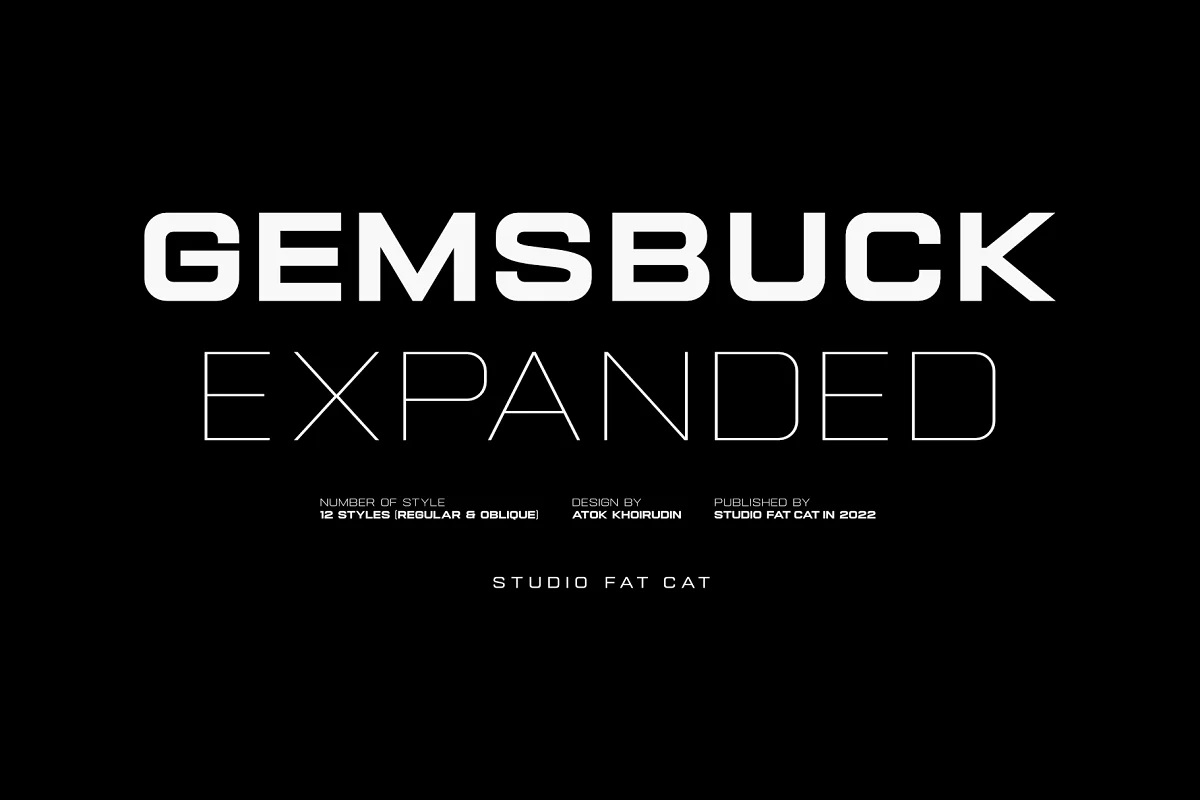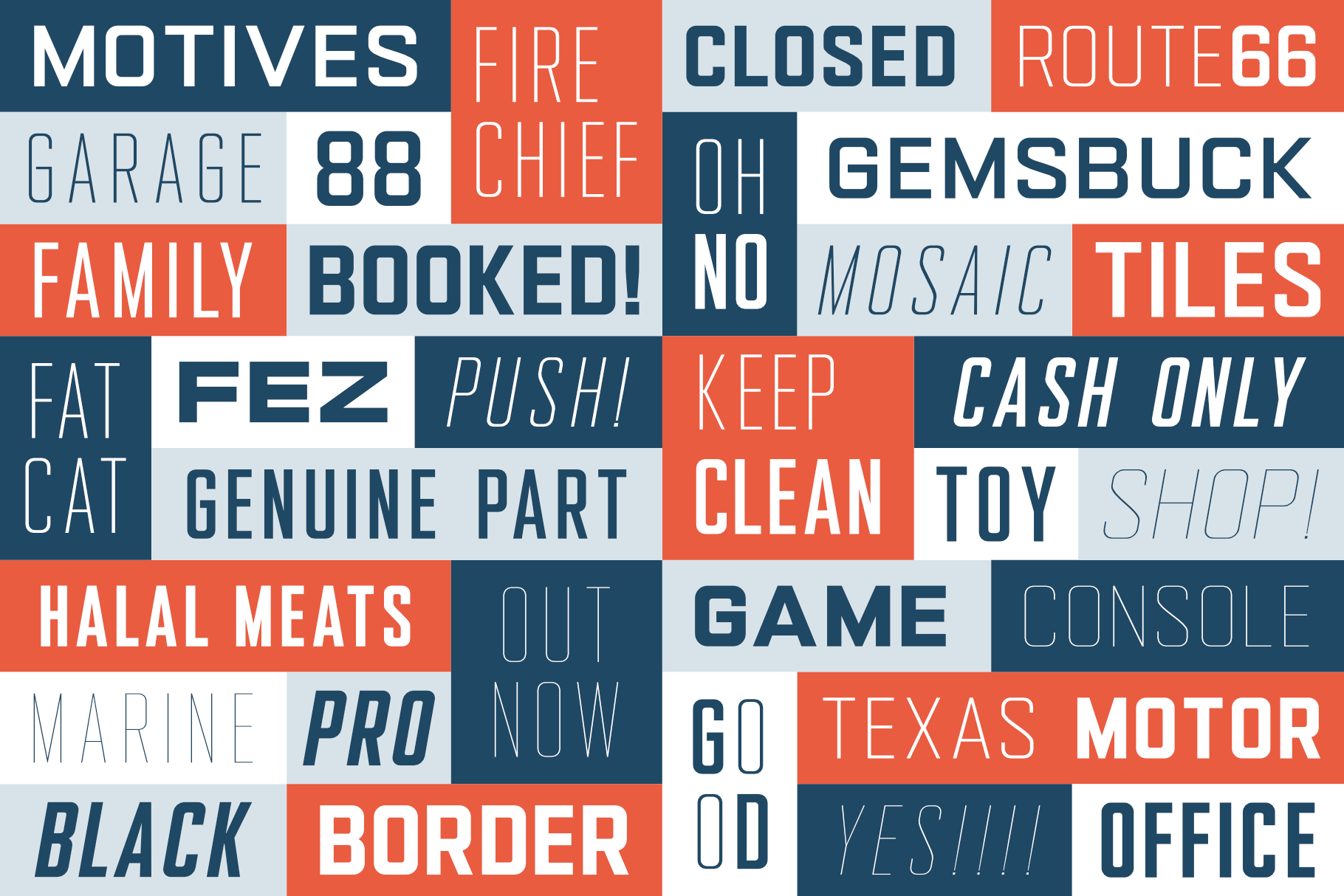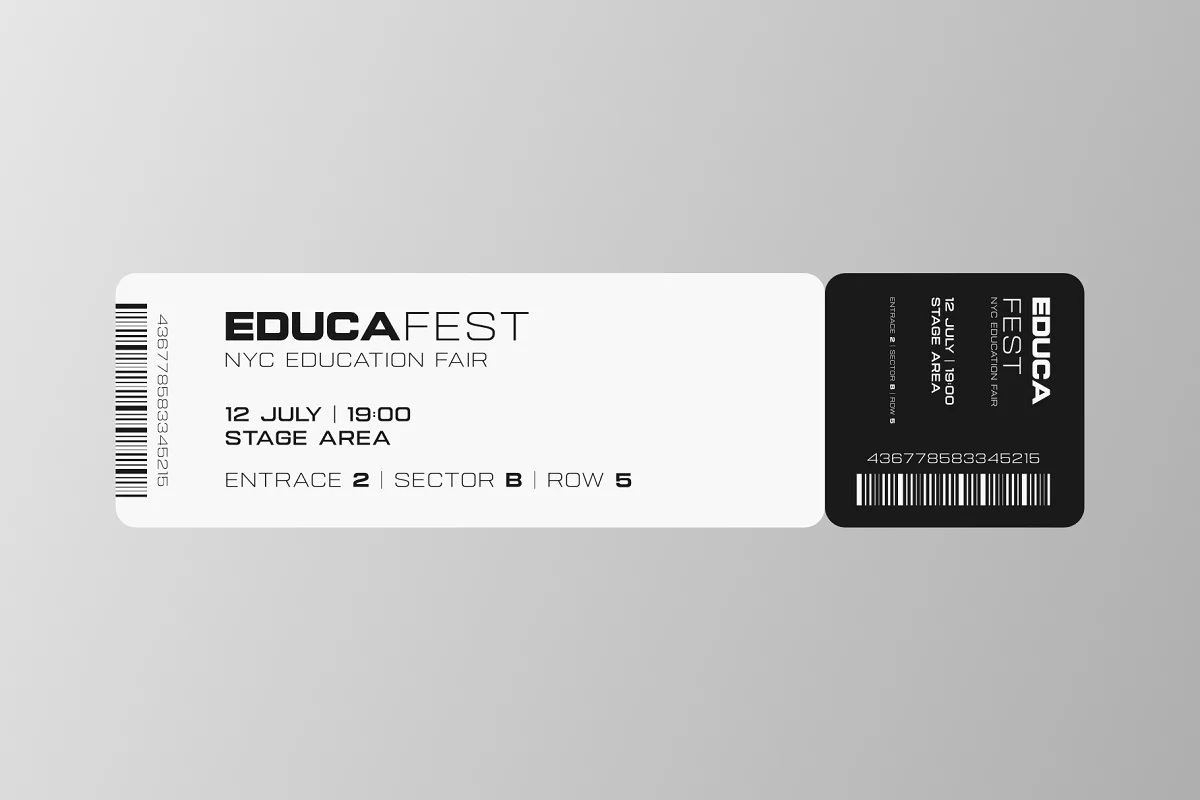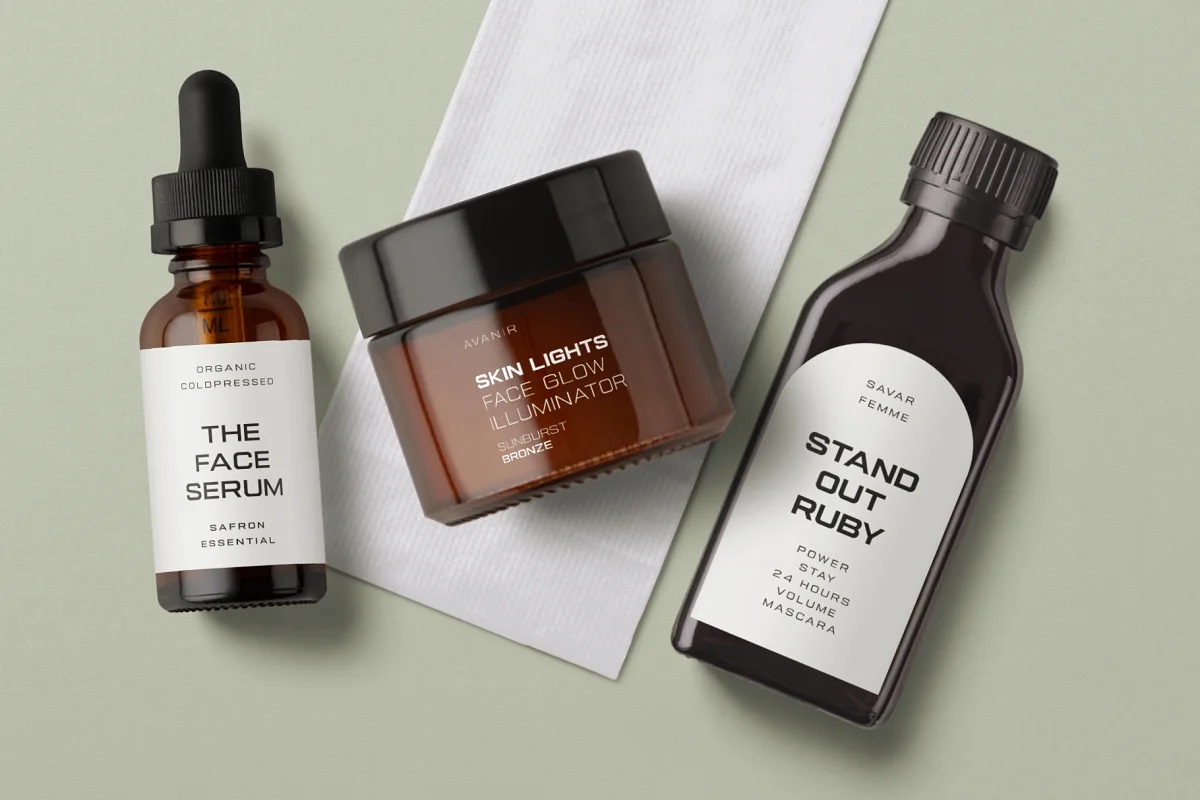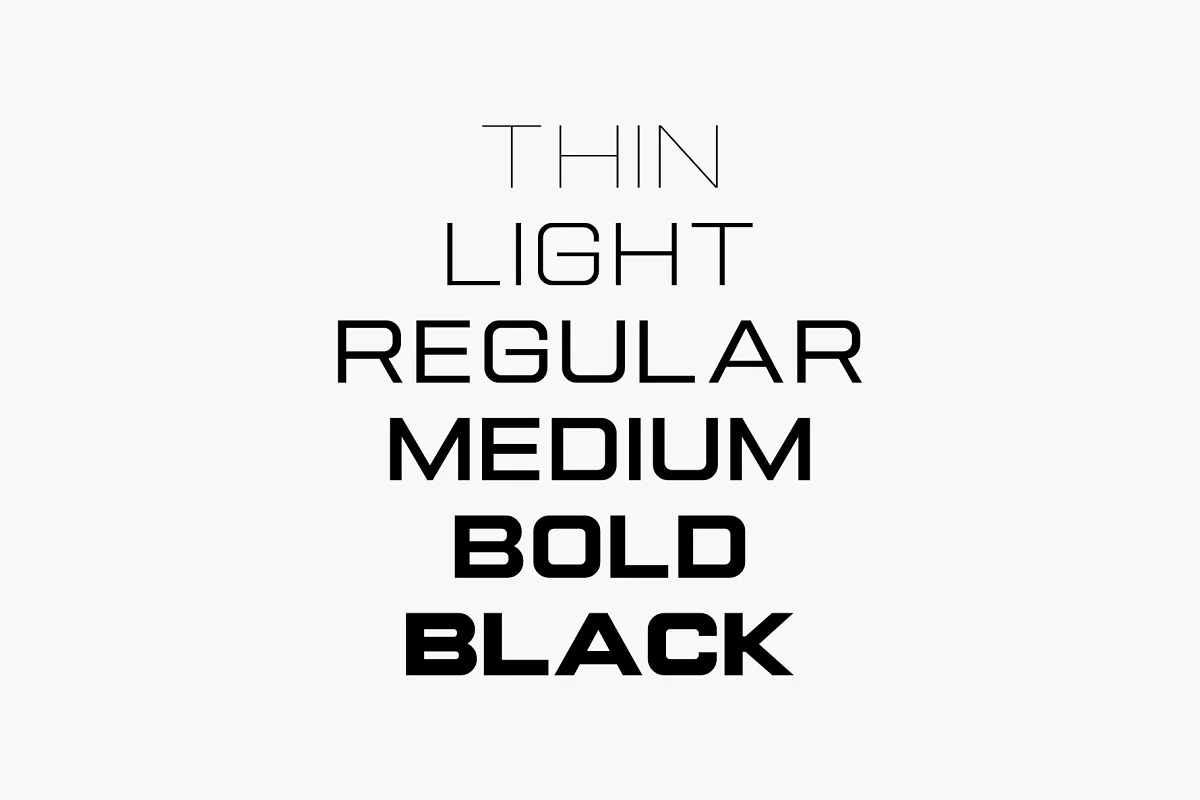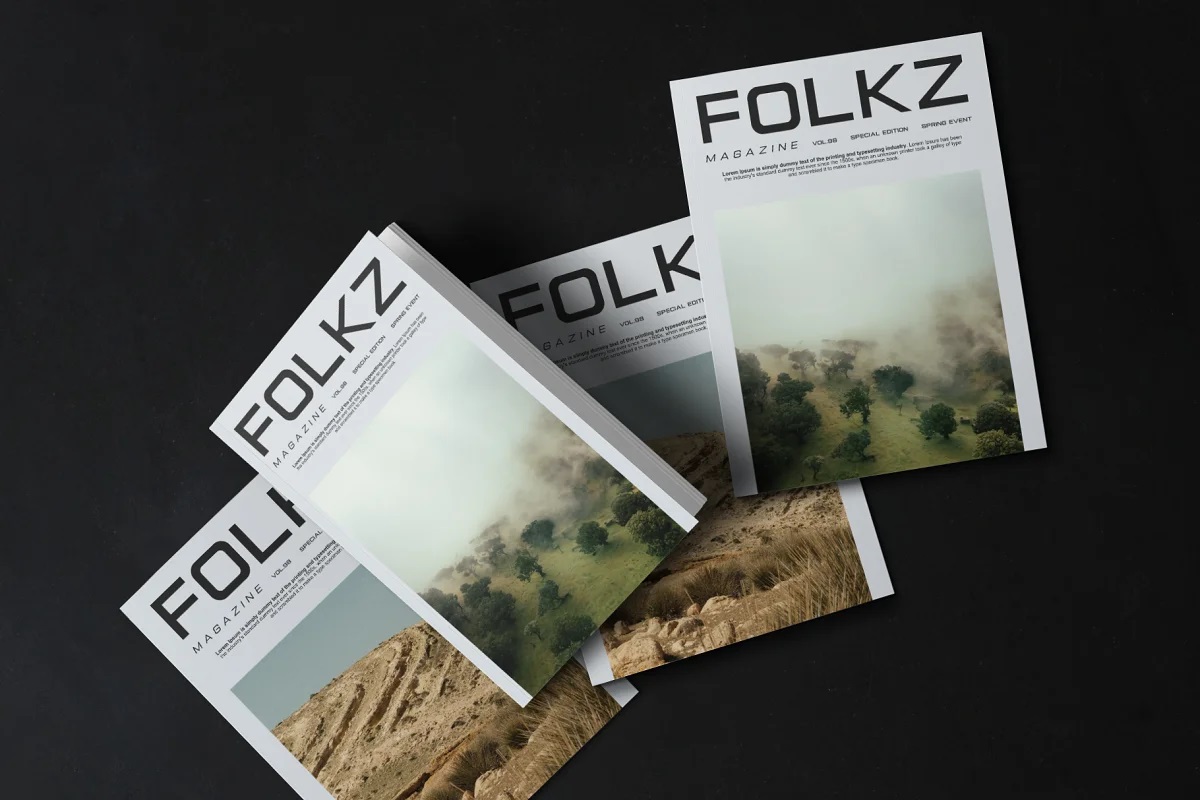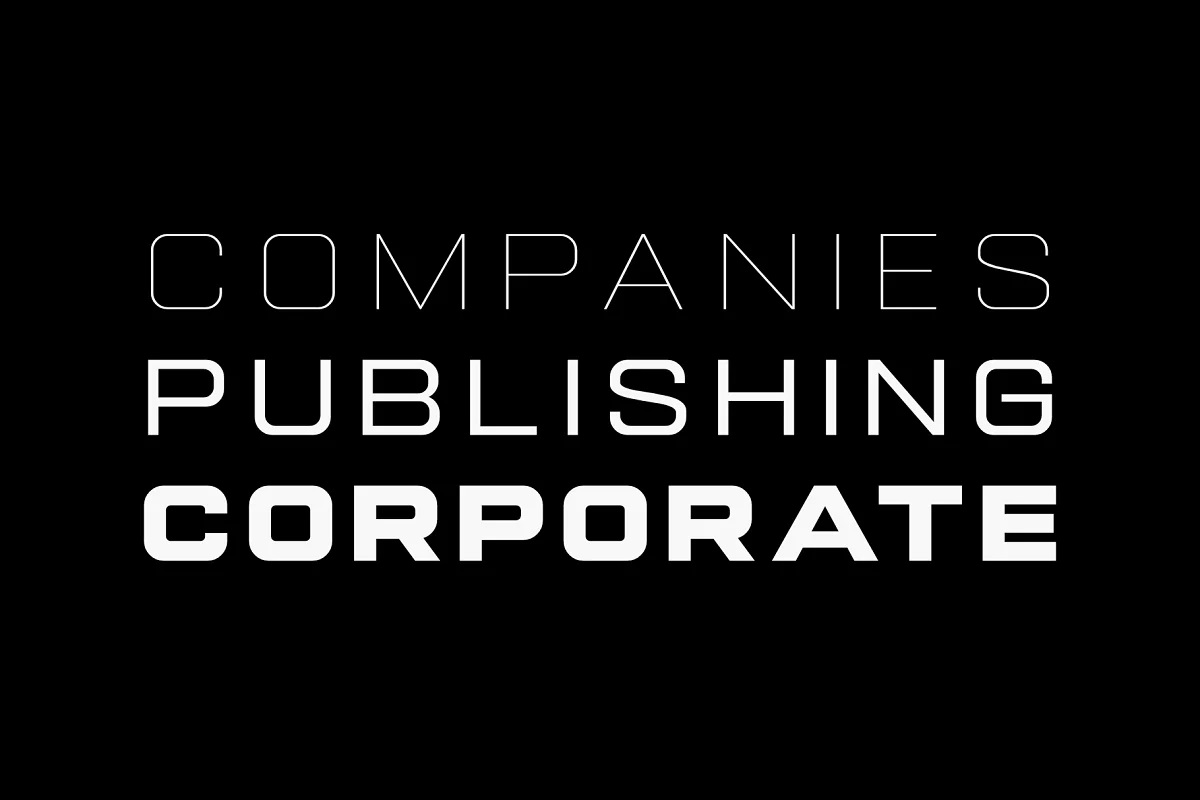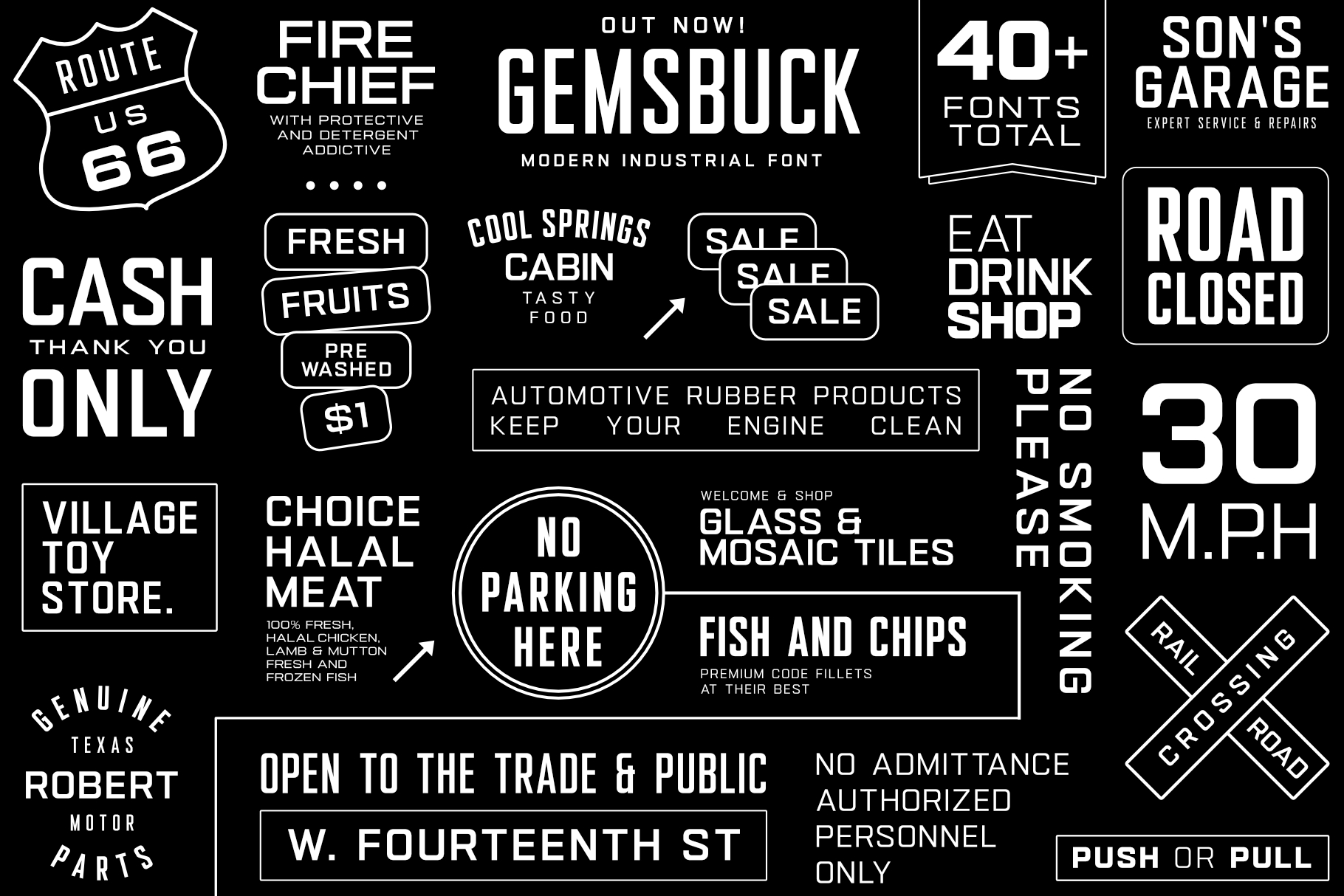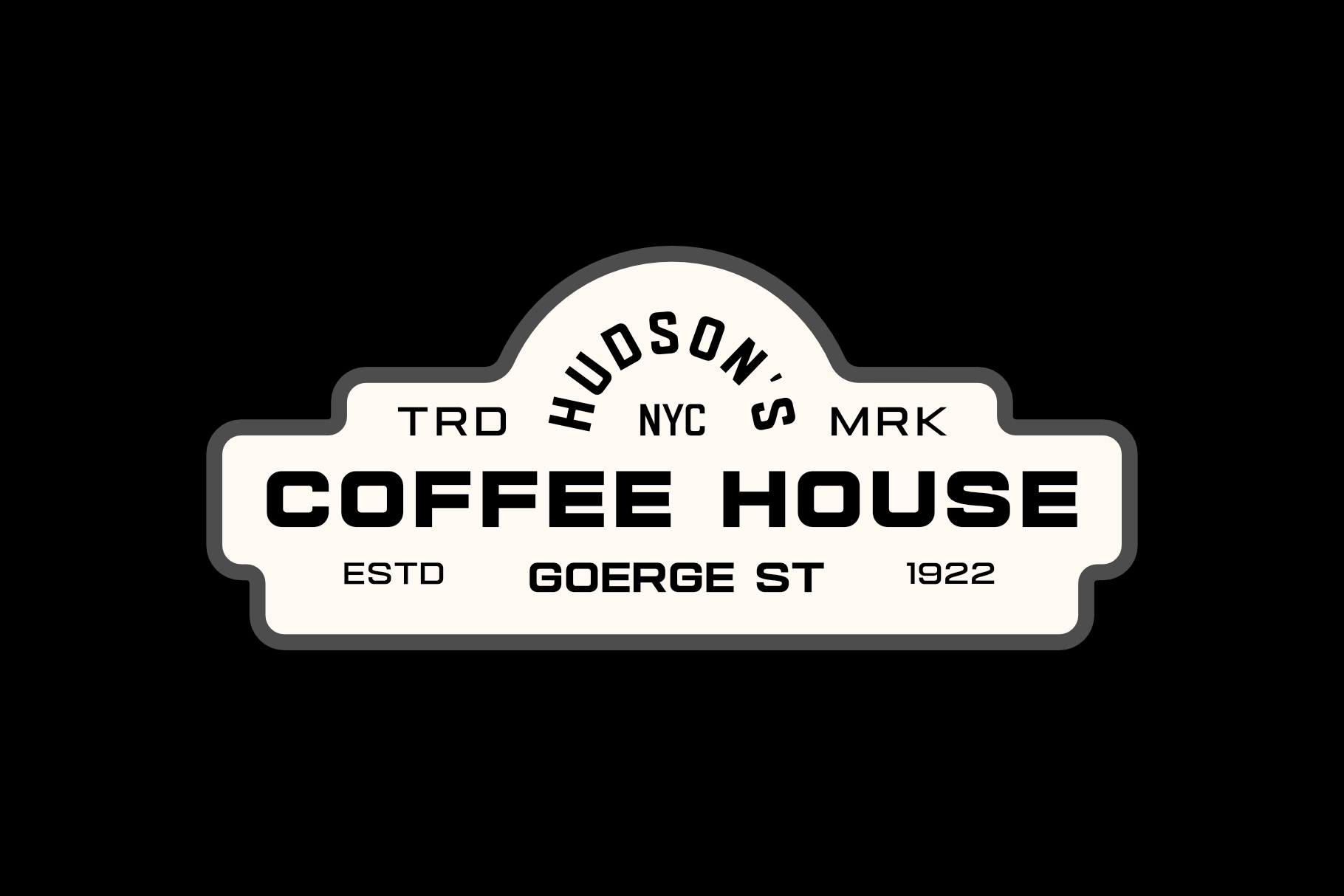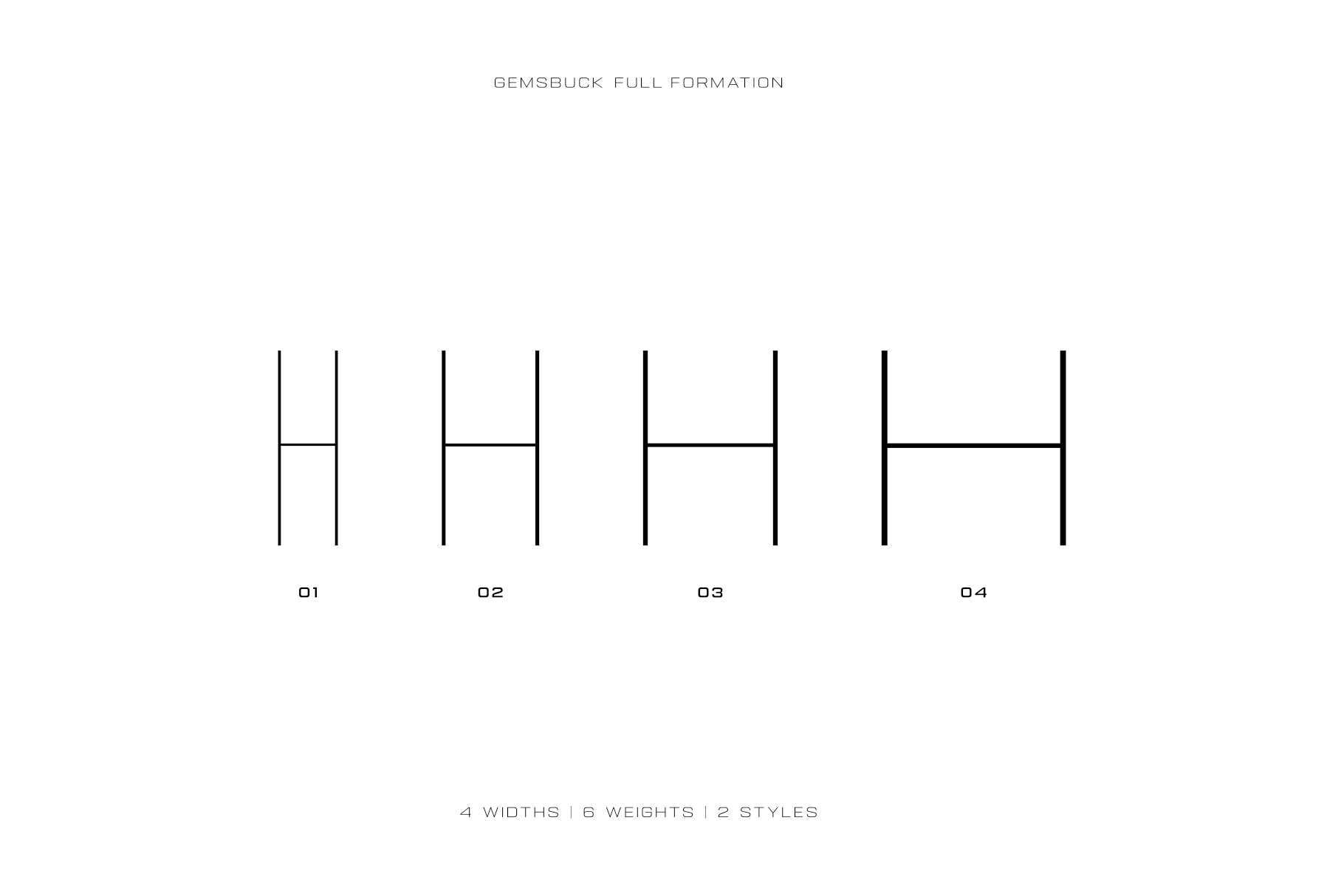
- Gemsbuck Pro Modern Logo Font
Gemsbuck Pro is a modern logo font family with 40 versatile styles, blending tech sharpness with vintage soul.
Perfect for luxury branding, elegant logos, or even modern wedding visuals, Gemsbuck Pro brings both technical structure and artistic edge.